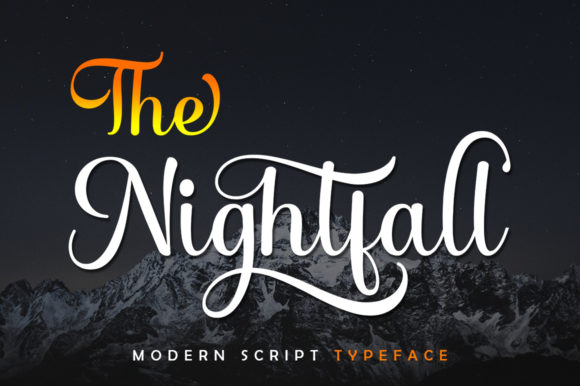
Introducing The Nightfall Font, a captivating addition to your font collection that is sure to make your website design stand out from the crowd. Created by Skinny type, this modern script font offers a unique blend of boldness, elegance, and vintage charm.
With its wide range of stunning swashes, The Nightfall Font allows you to add a touch of sophistication and creativity to your designs effortlessly. Whether you're working on a logo, branding, invitations, or any other project, this font provides the perfect opportunity to showcase your individuality.
One of the standout features of The Nightfall Font is its PUA encoding. This means that accessing the available glyphs and swashes is a breeze, allowing you to easily add those extra flourishes and embellishments to your text. Say goodbye to limitations and embrace the freedom to create truly captivating and personalized designs.
When it comes to website design, fonts play a crucial role in conveying the right message and capturing the attention of your audience. The Nightfall Font excels in this area by offering a wide range of options that are sure to leave a lasting impression. From sleek and modern to vintage and nostalgic, this font family has it all.
Picture your website with The Nightfall Font gracefully adorning your headlines and titles, instantly captivating your visitors. Its bold and elegant nature commands attention while adding a touch of sophistication to your website's overall aesthetic. Make a statement with every word and create an unforgettable user experience.
But The Nightfall Font offers more than just visual appeal. It evokes emotions, ignites creativity, and tells a story. It is the missing piece that will tie your entire design together. Imagine the power of words that not only convey information but also evoke a sense of wonder and intrigue in your readers.
Embrace the endless possibilities that The Nightfall Font brings to your creative endeavors. Let it become the voice of your brand, the essence of your message, and the catalyst for success. With its captivating style and versatile applications, this font is a must-have for any designer, marketer, or business owner looking to make a lasting impression.
In conclusion, The Nightfall Font is not just a font; it's a gateway to extraordinary design possibilities. Its bold, elegant, and vintage swashes, coupled with its PUA encoding, make it an invaluable asset for anyone in search of a font for website design. Let your imagination run wild and unleash the power of The Nightfall Font today.